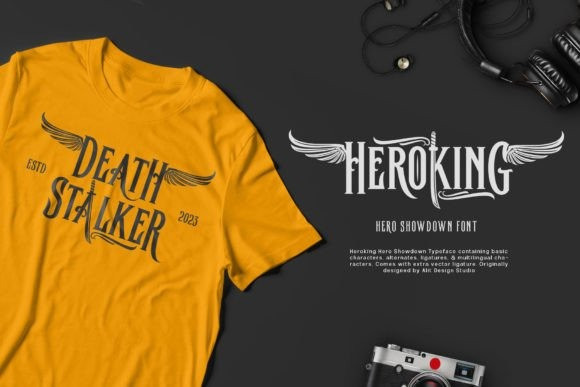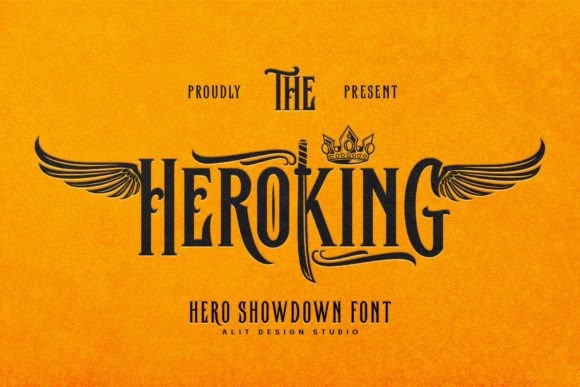
Heroking Font
Heroking Display Font is a cool and strong display font. Its masculine and powerful character is perfect for creating bold and daring designs! Heroking is PUA encoded which means you can access all the amazing glyphs and ligature with ease!